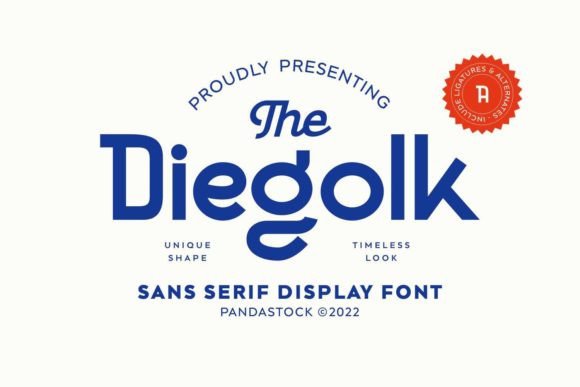
Diegolk Font
Step into a typographic world of elegance with Diegolk Font, a sans serif masterpiece that exudes visual refinement and allure. Its smooth curves and graceful ligatures create a visual symphony, making your designs not just readable but utterly captivating. Whether you're crafting logos, invitations, or any form of visual communication, Diegolk elevates your work to new heights of sophistication.
Its versatility knows no bounds, seamlessly adapting to both large and small sizes without compromising its beauty. Bold headlines and delicate details alike are rendered with equal precision and grace. Dive into the myriad possibilities that Diegolk offers, embracing projects like branding, magazines, photography, cards, product packaging, and more.
With its wide range of applications, Diegolk is the perfect companion for a vast spectrum of business sectors. From personal projects to corporate giants, studios, creative agencies, industrial enterprises, and beyond, this font effortlessly enhances the visual identity of any endeavor.
The magic of Diegolk lies in its PUA encoding, which grants you effortless access to a treasure trove of glyphs and swashes. Unleash your creativity and let your designs bloom with individuality and flair. With Diegolk by your side, your visual expressions will leave an unforgettable mark.